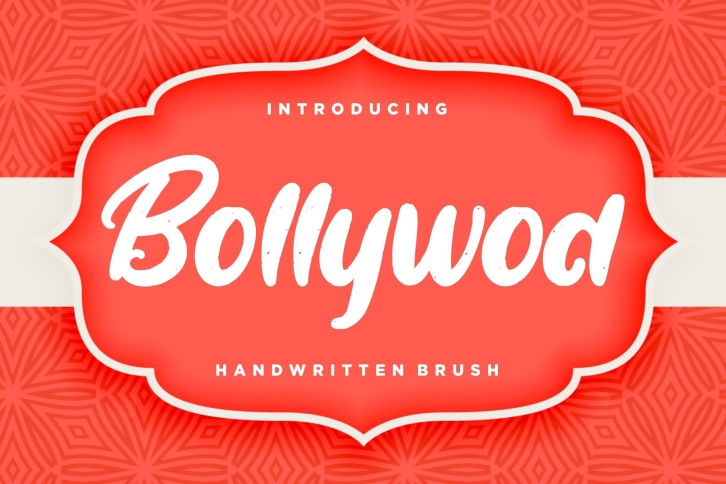
Bollywod Handwritten Brush is a gorgeous font that was realeased on May 20, 2020. The font can be used in many style contexts and design environments. Perfect for invitations, magazines, websites, logos, and more! It was designed by Creatype Studio and the file size is 9.70 MB. Thanks for checking out this font!